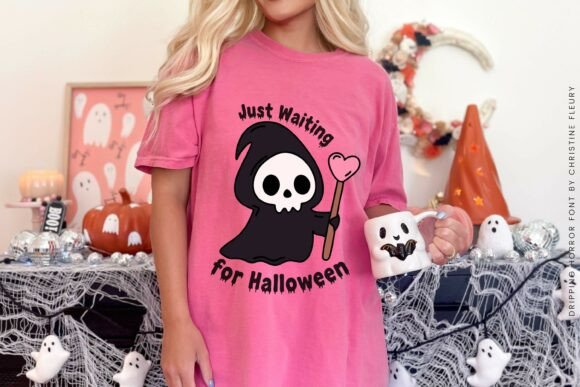
Cf Vampsy Font
Vampsy is a bold display horror font with dripping, blood-like details that instantly evoke eerie thrills and sinister vibes. Its thick, hand-drawn letterforms ooze with character, making it the perfect choice for Halloween invitations, horror movie posters, haunted house branding, creepy game titles, and spooky social media graphics. The playful yet chilling drips give your designs a dramatic and unforgettable edge, balancing fear with fun. Whether used in large headlines or eye-catching logos, Vampsy brings a unique, spine-tingling aesthetic to every project.